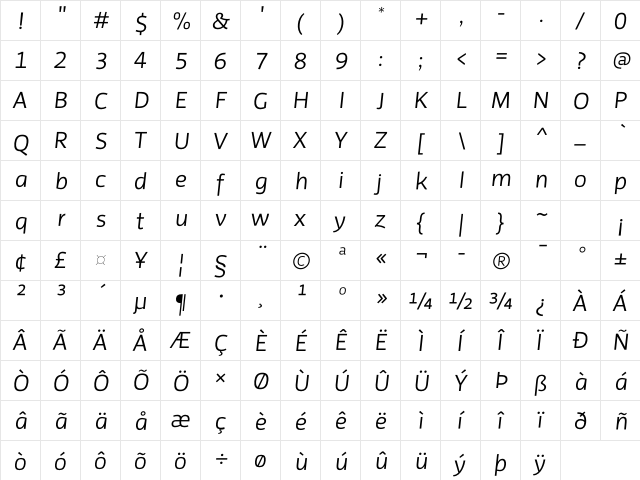
PrivaOneItalicPro Regular
Design Context for PrivaOneItalicPro Typeface
PrivaOneItalicPro takes a measured approach to typography — its balanced proportions and neutral character make it a reliable workhorse for both digital and print work. The slanted form adds forward momentum and visual energy.
Pro Tip: Try PrivaOneItalicPro for annotation and caption copy alongside an upright companion — the contrast in angle creates a dynamic but ordered typographic system.